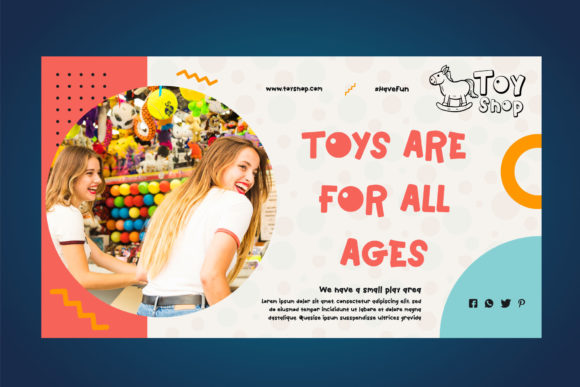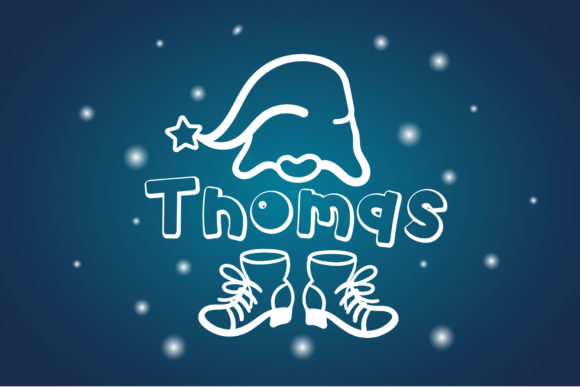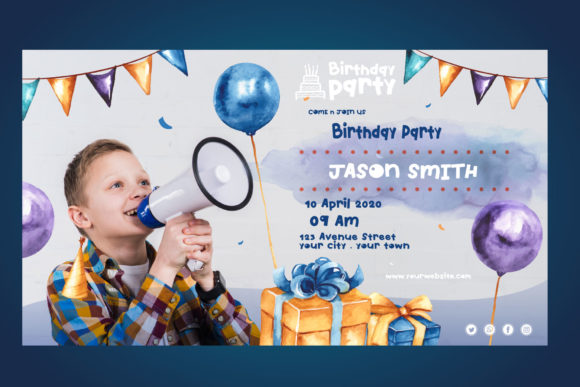
Introduction to Frozen Gnome Font
Frozen Gnome is a cool and uniquely designed display font.
Whether you are using it for cartoon-related designs, children games, quotes, titles, brand names, book covers, posters, or just any creation that requires a touch of joy, this font is a great choice .
Why Choose Frozen Gnome Font?
Frozen Gnome Font offers exceptional quality and versatility, making it a valuable addition to your design toolkit. Whether you’re creating for personal projects or commercial use, Frozen Gnome Font delivers professional results.